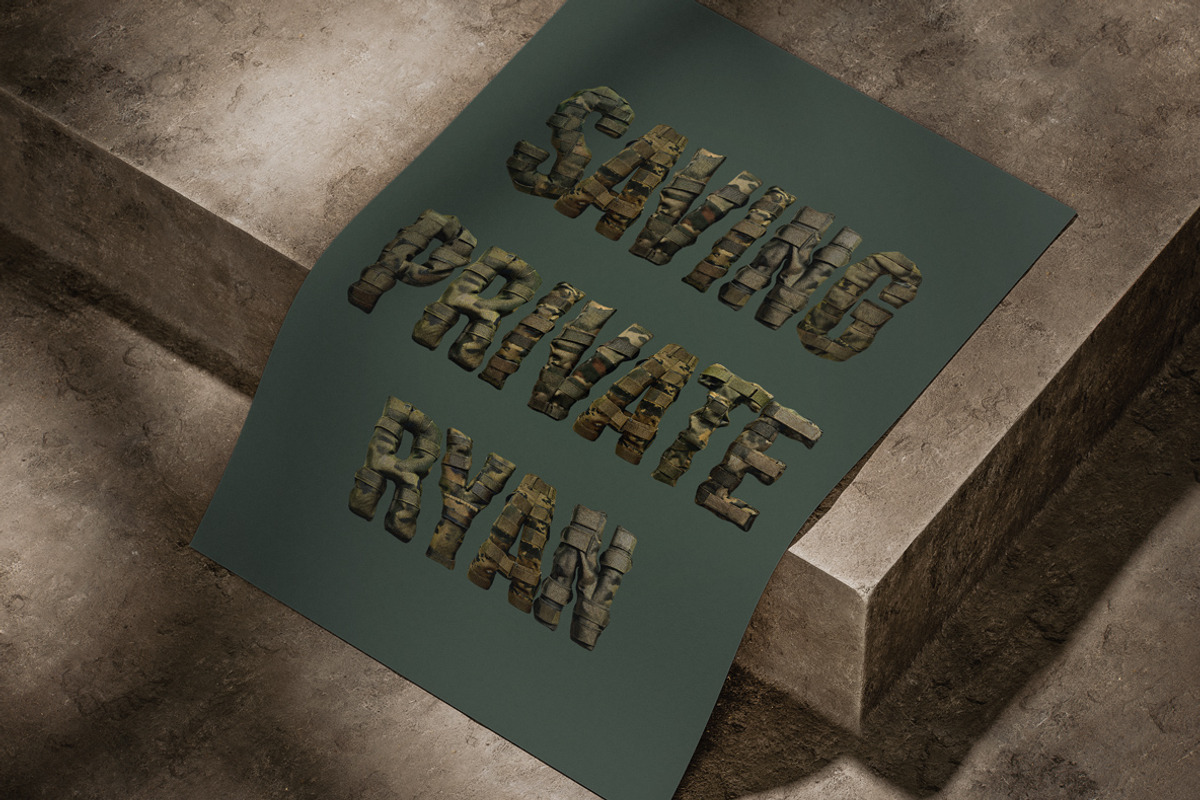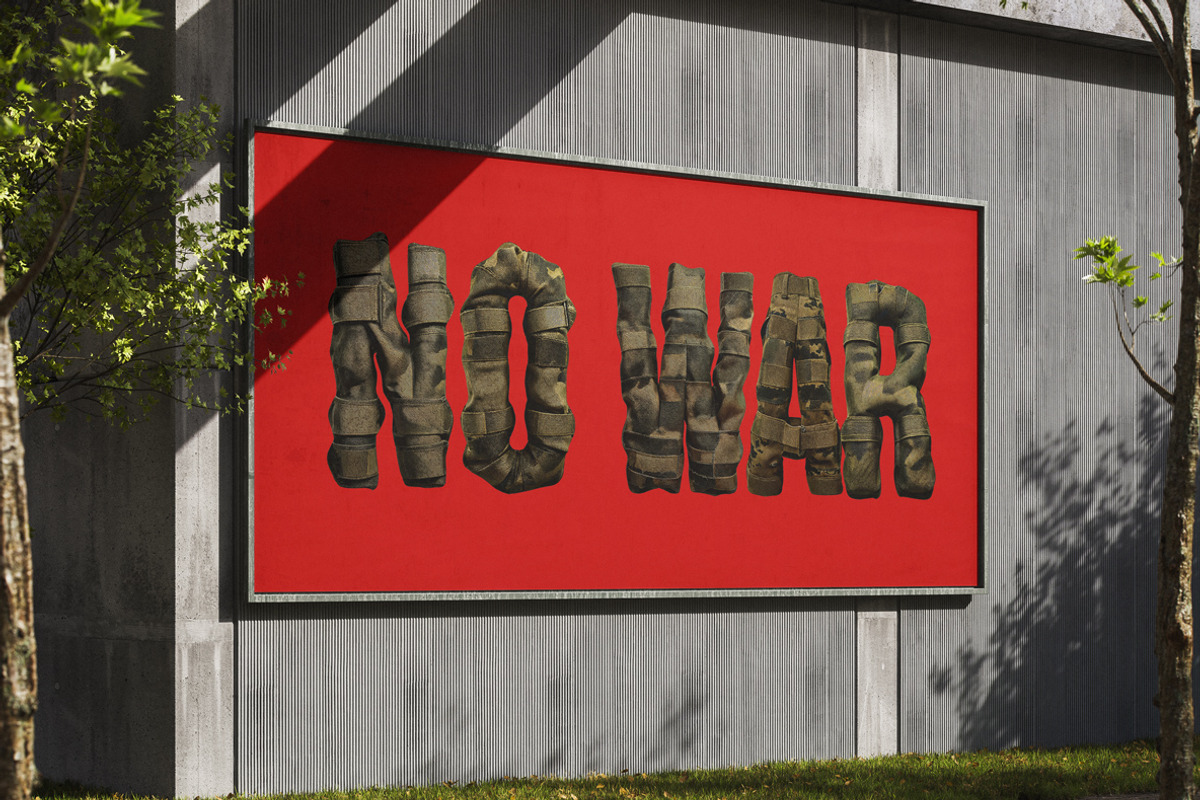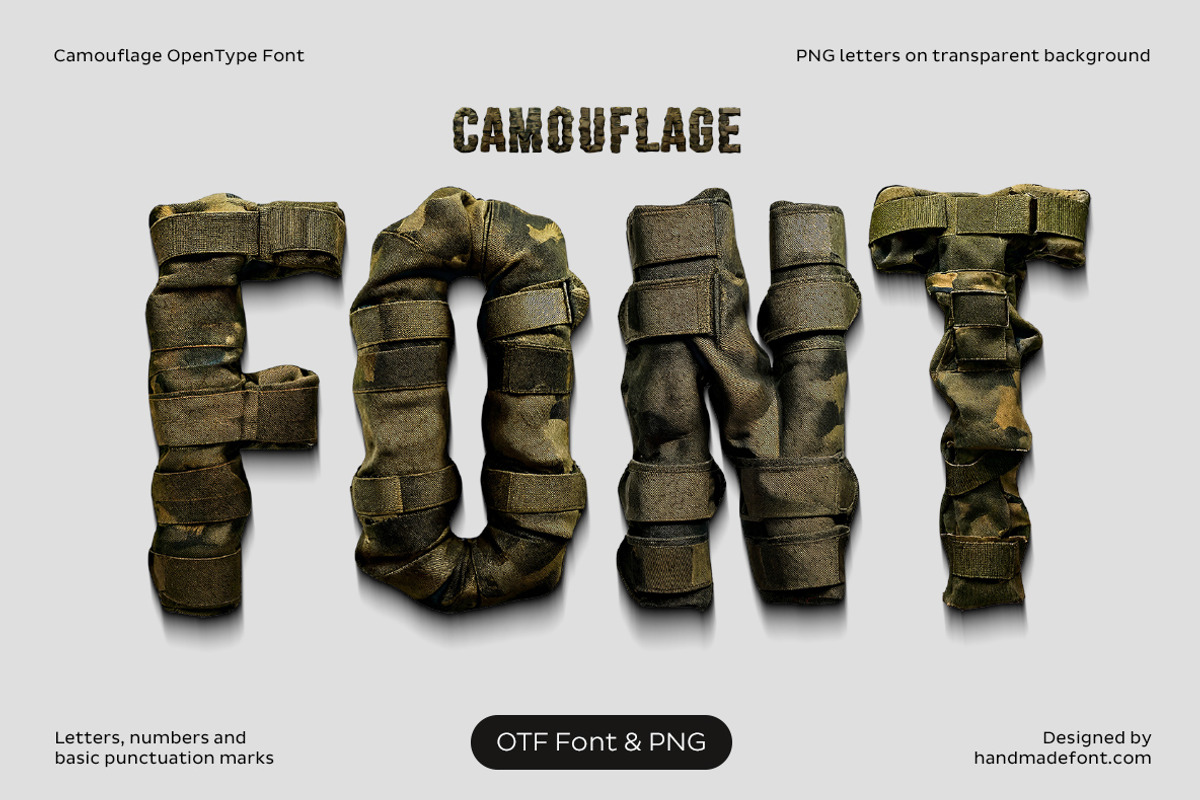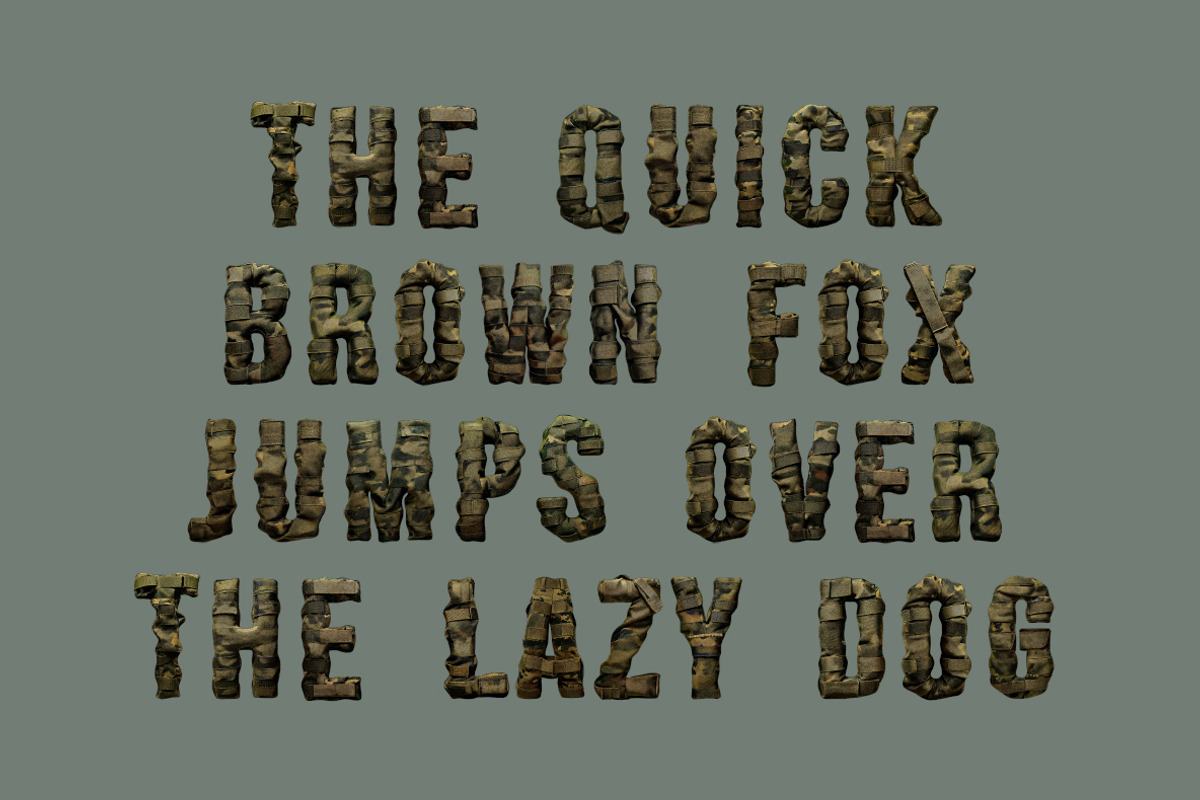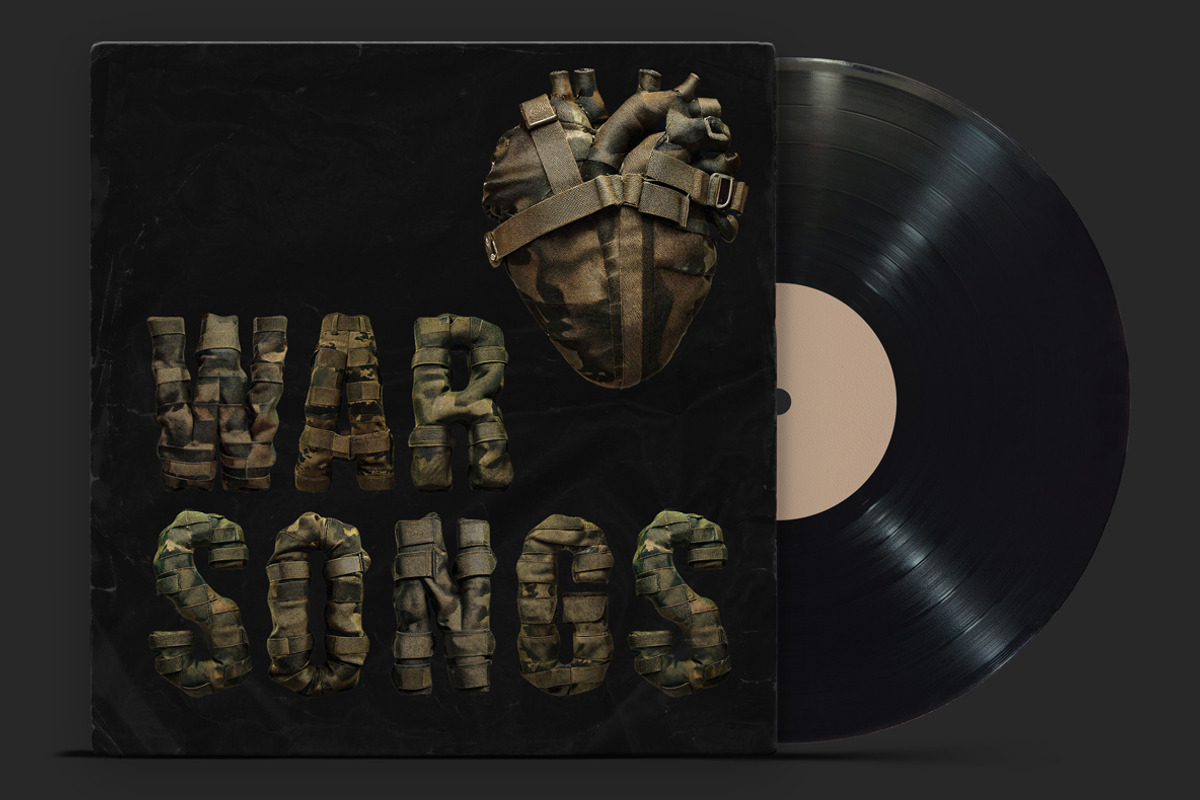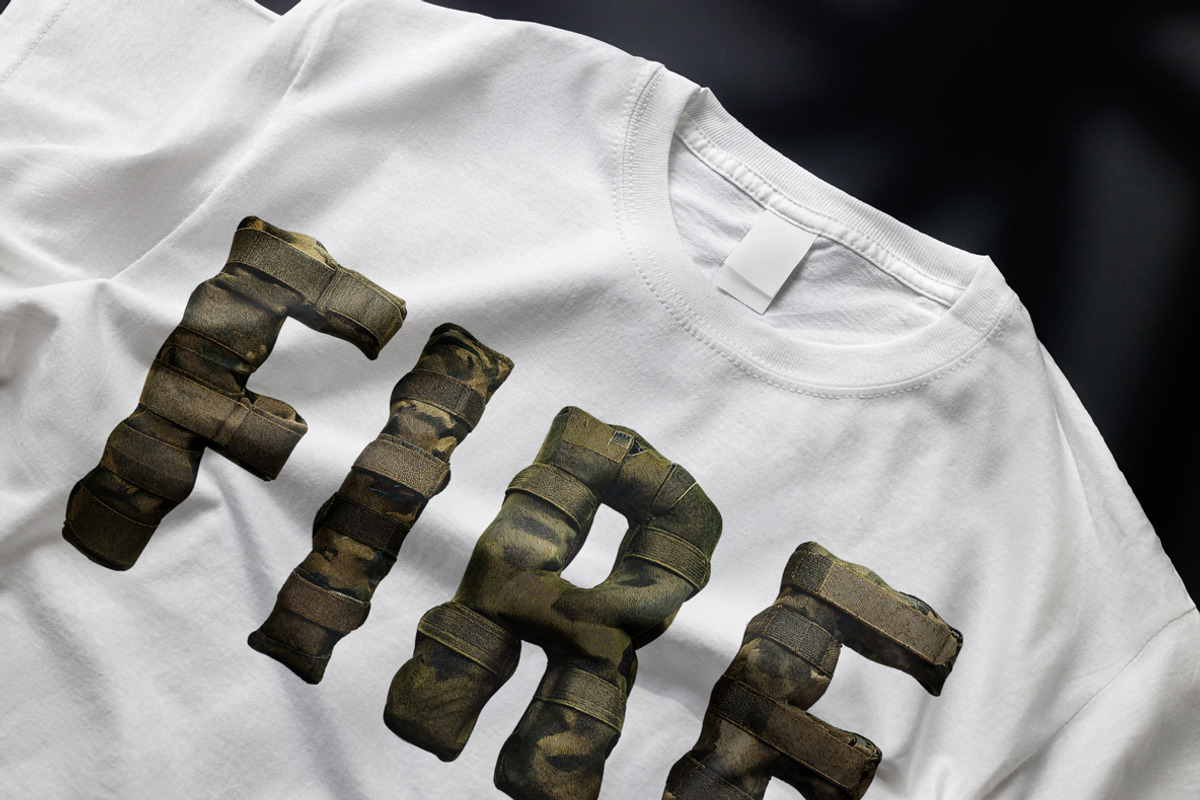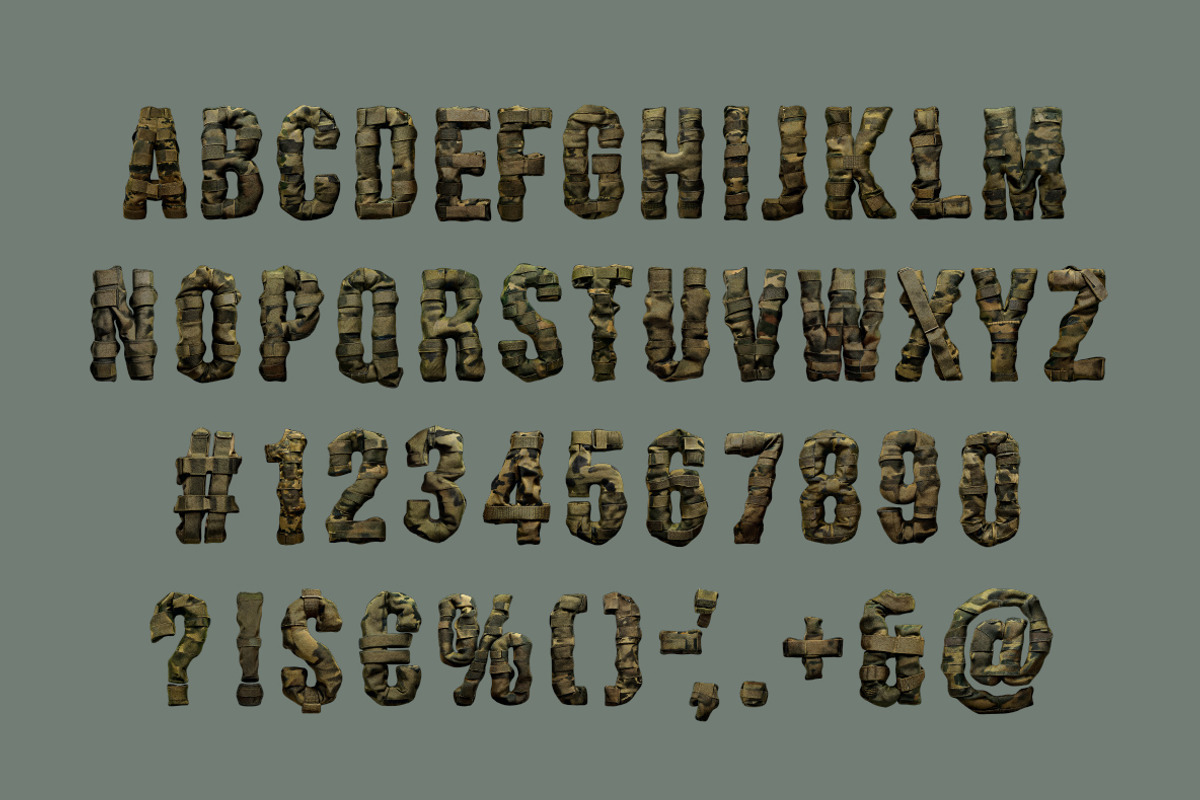
Camouflage Font
Camouflage Font is a battle-ready typeface stitched from authentic-looking military fabric. Each letter is wrapped in rugged camouflage, complete with straps, seams, and tactical vibes. The texture evokes the gear of soldiers—worn, tough, and built for action. Perfect for themes of war, survival, or military strategy, this font doesn’t whisper—it commands attention. Whether you’re designing a video game title, a poster for a war film, or a bold editorial spread, Camouflage Font brings raw strength and realism to the front line of your design. It’s not just a font—it’s fully armed visual storytelling.
A high definition OpenType Font. Contains uppercase characters, numerals and basic punctuation. (Draw height roughly 800 pixels). All letters and glyphs that comprises this font you can see on the preview.